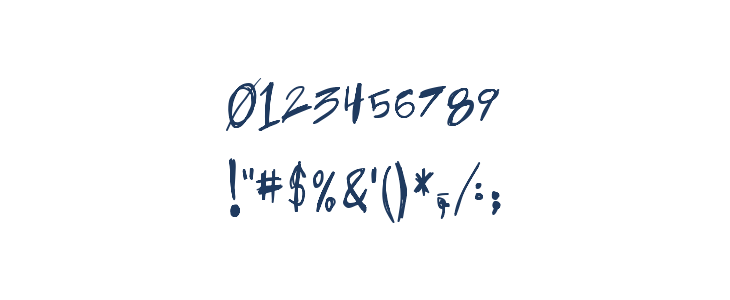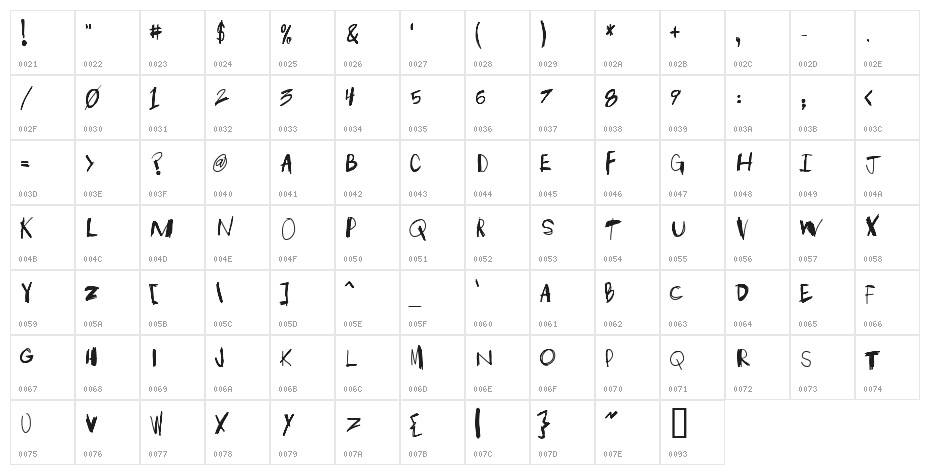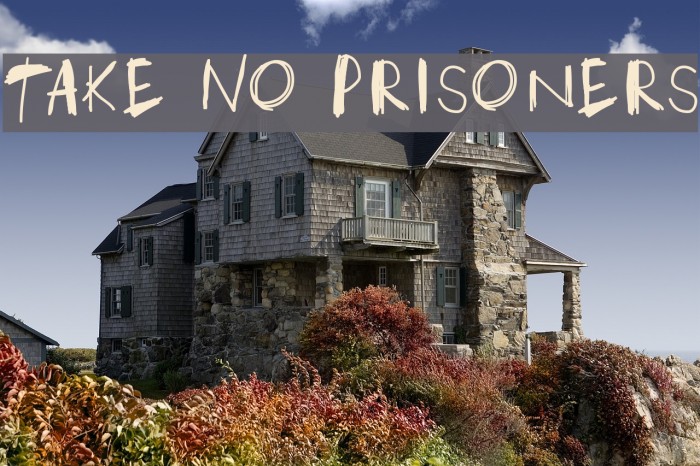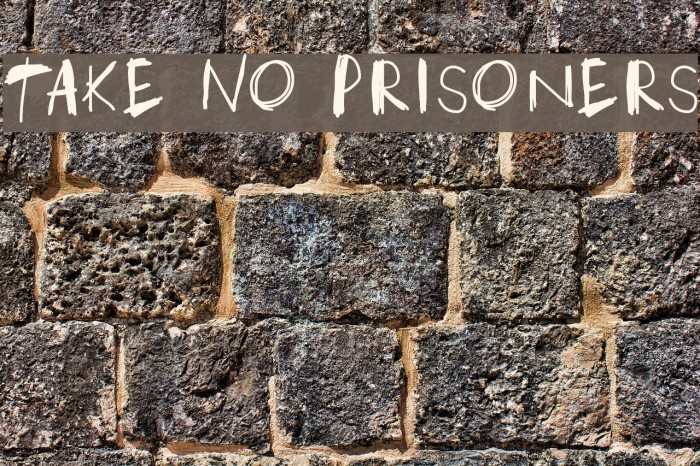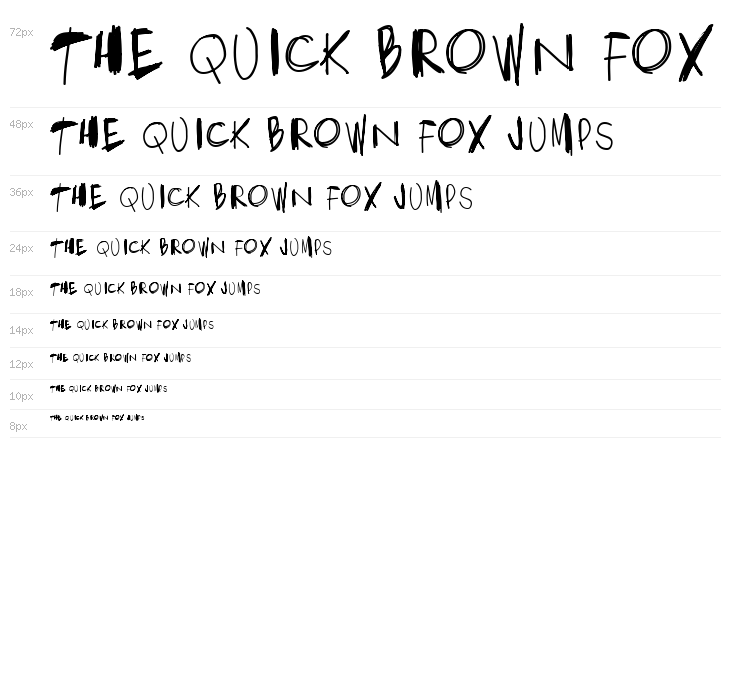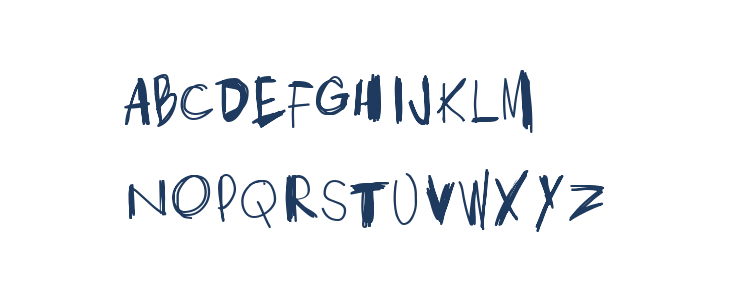
Take No Prisoners Font
Take No Prisoners Description
This font exudes a raw, energetic vibe with its bold, hand-drawn appearance. The letters are irregular and dynamic, giving off a sense of urgency and movement. The strokes are thick and uneven, adding to the font's rebellious and edgy character. The uppercase and lowercase letters maintain a consistent style, while the numbers and special characters complement the overall aesthetic. The font's rough edges and spontaneous feel make it stand out, perfect for projects that require a bold statement.
Proposed ProjectsIdeal for music album covers, posters, graffiti art, and edgy branding projects.